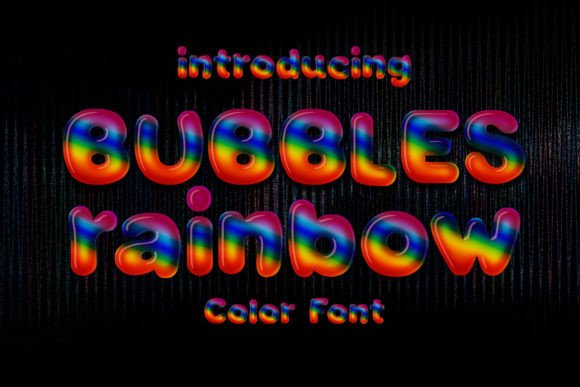
Bubbles Rainbow: A Playful Font for Modern, Vibrant Design
A Typeface That Captures Joy and Energy
When a project calls for a sense of fun, optimism, and undeniable charm, the typography you choose becomes the voice of your message. Bubbles Rainbow is a premium font engineered to deliver exactly that. It’s not just a collection of letters; it’s a visual experience. Each character is a vibrant, multi-colored bubble, creating an immediate sense of whimsy and approachability. This creative font moves beyond traditional monochrome text, offering a built-in color palette that can energize a design from the ground up. Its personality is inherently friendly, youthful, and dynamic, making it a powerful tool for projects that need to stand out with a positive, memorable impact.
As an OpenType-SVG bitmap font, Bubbles Rainbow leverages advanced font technology to preserve its detailed, illustrative quality. The letters appear as crisp, high-resolution bitmaps within the font file, ensuring the color gradients and subtle textures remain intact at various sizes. This is a significant step forward from flat, single-color typefaces, allowing for a level of detail and personality previously only possible with static image files. For designers and creators, this means you can type directly in this spectacular style without needing to manually apply effects or layer multiple elements. It streamlines the creative process while delivering a visually rich result.
Where Bubbles Rainbow Truly Shines
Understanding where a display font like Bubbles Rainbow works best is key to leveraging its strengths. It’s engineered for high-impact, short-form text where personality is paramount. Think of it as the exclamation point in your typographic toolkit, not the sentence. Its ideal applications are those where you want to capture attention quickly and convey a specific, upbeat mood.
- Branding and Logo Design: For brands targeting families, children, or the wellness and lifestyle sectors, Bubbles Rainbow can form the cornerstone of a vibrant brand identity. It’s perfect for logos, mascots, and brand marks that need to feel accessible and joyful. A children’s boutique, a summer festival, or a colorful smoothie bar could use this typeface to instantly communicate their core values.
- Marketing and Social Media Graphics: In the fast-scrolling world of social media, stopping power is everything. Use Bubbles Rainbow for Instagram story headlines, Facebook ad call-outs, Pinterest pin titles, and event promotion graphics. Its inherent visual appeal helps social media graphics stand out in a crowded feed, increasing engagement and shareability.
- Publishing and Editorial Design: While not suited for body copy, it’s a fantastic choice for chapter titles, pull quotes, magazine headers, or the title treatment on a whimsical book cover. In editorial design, it can break up dense text, inject personality, and guide the reader’s eye to key sections.
- Packaging and Product Design: Imagine this font on a candy wrapper, a toy box, a party supply label, or the packaging for a fun, artisanal product. It adds a tactile, playful quality that can influence a customer’s perception at the point of sale, making the product feel more engaging and delightful.
- Personal Projects and Crafting: For hobbyists and crafters, Bubbles Rainbow is a dream. It’s perfect for designing personalized birthday cards, party invitations, scrapbook elements, and custom t-shirt graphics. It brings a professional, polished look to DIY projects without requiring advanced design skills.
Practical Guidance for Implementation
Integrating a unique design asset like Bubbles Rainbow into your workflow requires a thoughtful approach. Its effectiveness depends on context and careful pairing. Here’s how to get the most out of this font.
Evaluate Project Fit and Readability: The foremost consideration is appropriateness. Bubbles Rainbow is a creative font designed for display purposes. It excels in headlines, titles, and short, impactful phrases. It is not designed for long paragraphs or small body text, where its detailed, colorful nature could impair readability. Always prioritize your message’s clarity. If the text needs to be read quickly and easily at a small size, pair Bubbles Rainbow with a clean, neutral sans serif font or serif font for supporting copy.
Mastering Font Pairing: The key to a professional layout is contrast and harmony. Bubbles Rainbow is a bold, expressive display font. It pairs best with typefaces that are simple, clean, and understated. A classic sans serif font like Helvetica, Futura, or a modern geometric sans can provide excellent balance, letting the headline pop while ensuring the rest of the text remains legible. Avoid pairing it with other highly decorative fonts like ornate script fonts or other colorful handwritten fonts, as this can create visual chaos and dilute the impact of both.
Reviewing Styles and Technical Notes: Bubbles Rainbow may come with stylistic alternates or additional glyphs that offer different color combinations or bubble arrangements. Explore these options in your design software’s glyphs panel to add variety. It is crucial to remember its technical requirements: as an OpenType-SVG font, it requires specific software for full functionality. It is fully visible in modern applications like Adobe Photoshop CC 2017 and later, Illustrator CC 2018+, InDesign CC 2019+, and native macOS apps. However, it will not render correctly in older software like Photoshop CC 2015. Always test the font in your intended application before finalizing a design.
By treating Bubbles Rainbow as a specialized tool rather than a universal solution, you can harness its unique energy to create designs that are not only visually stunning but also strategically effective. It’s an invitation to play, to be bold, and to share your work with a burst of color that others will find genuinely inspiring.